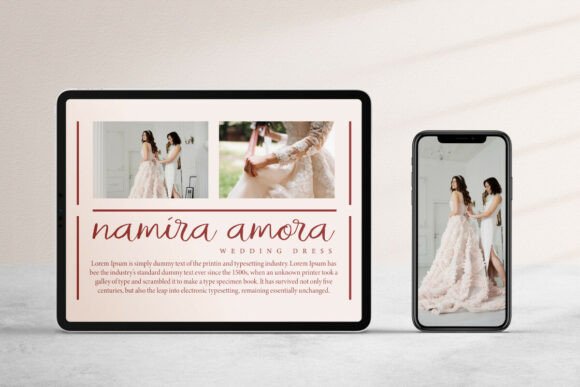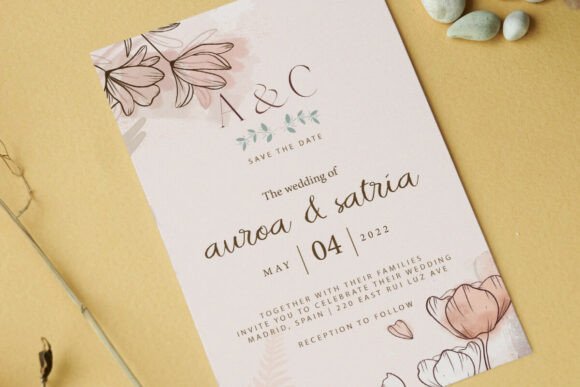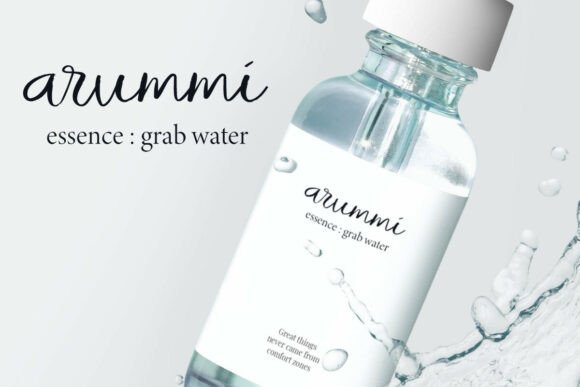
Introduction to Get a Dream Font
Get A Dream Font is a chic handwritten script font that uses a variety of simple ligatures.
It is handcrafted to achieve a very natural handwriting style This versatile typeface adds a distinctive touch to your designs, such as apps, branding materials, brochures, headings, invitations, labels, logos, posters, quotes, stationery, tags, websites, or anything.
Key Features of Get a Dream Font